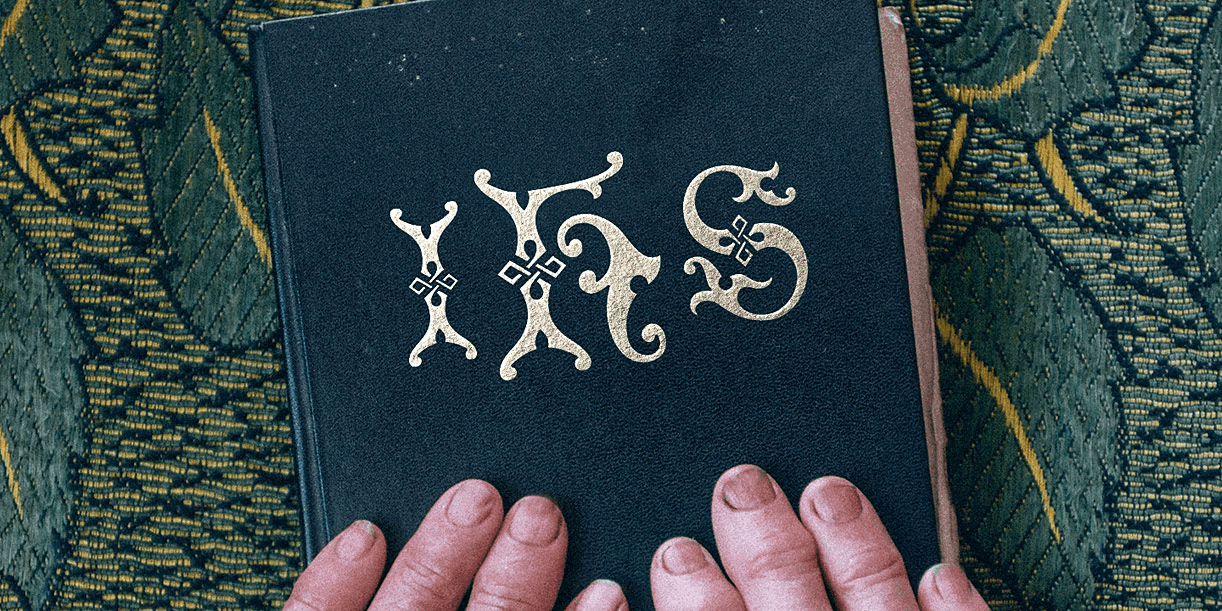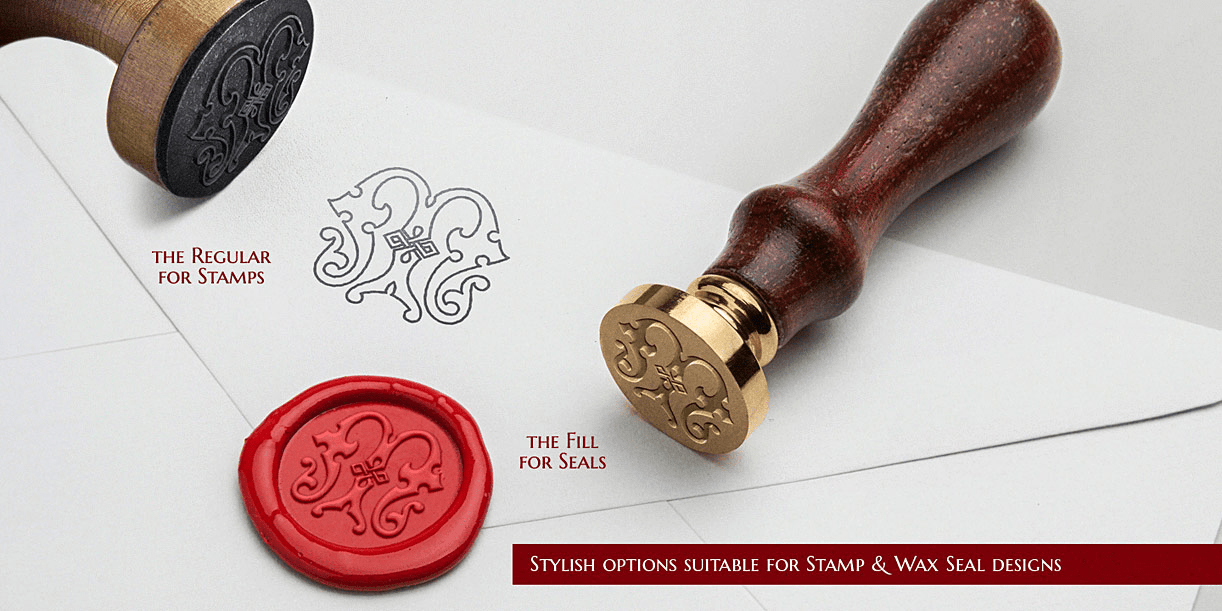
About MFC Imperator Monogram
The source of inspiration for MFC Imperator Monogram is an alphabet set from the book, "Monograms and Alphabets for Combination" by Dollfus Mieg & Cie, first published in the 1890's. Originally developed as a Capitals & Numerals…